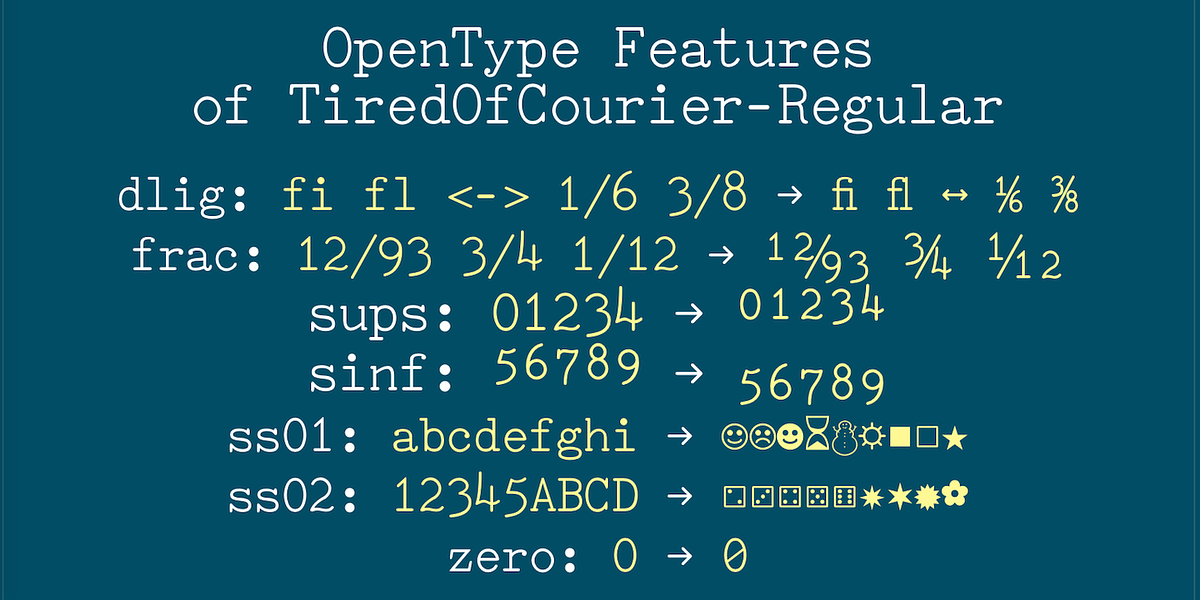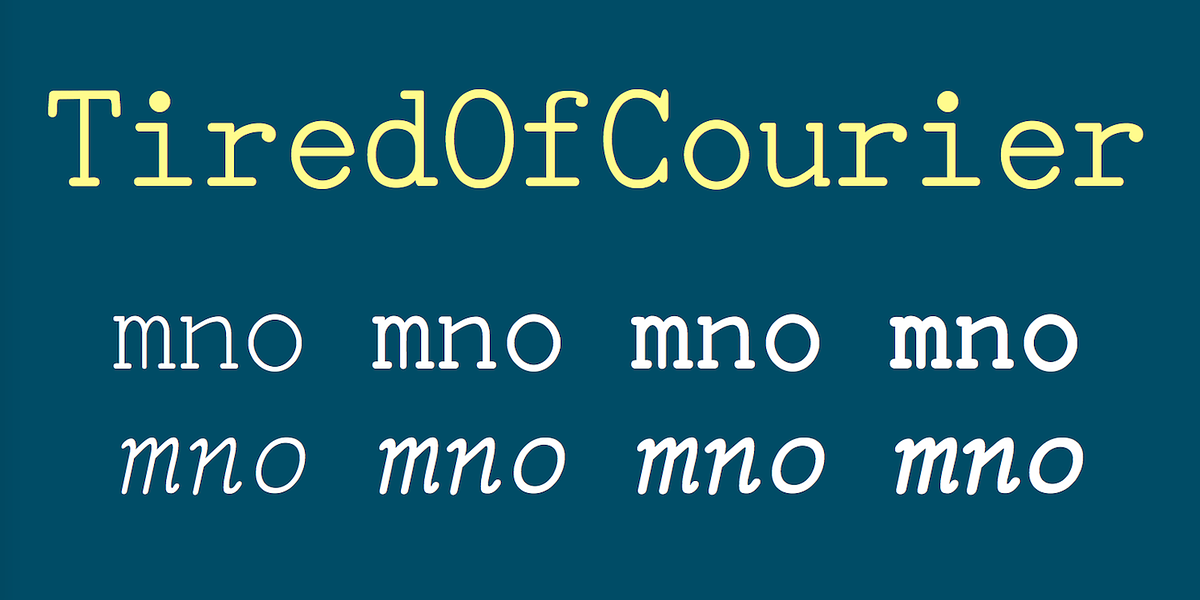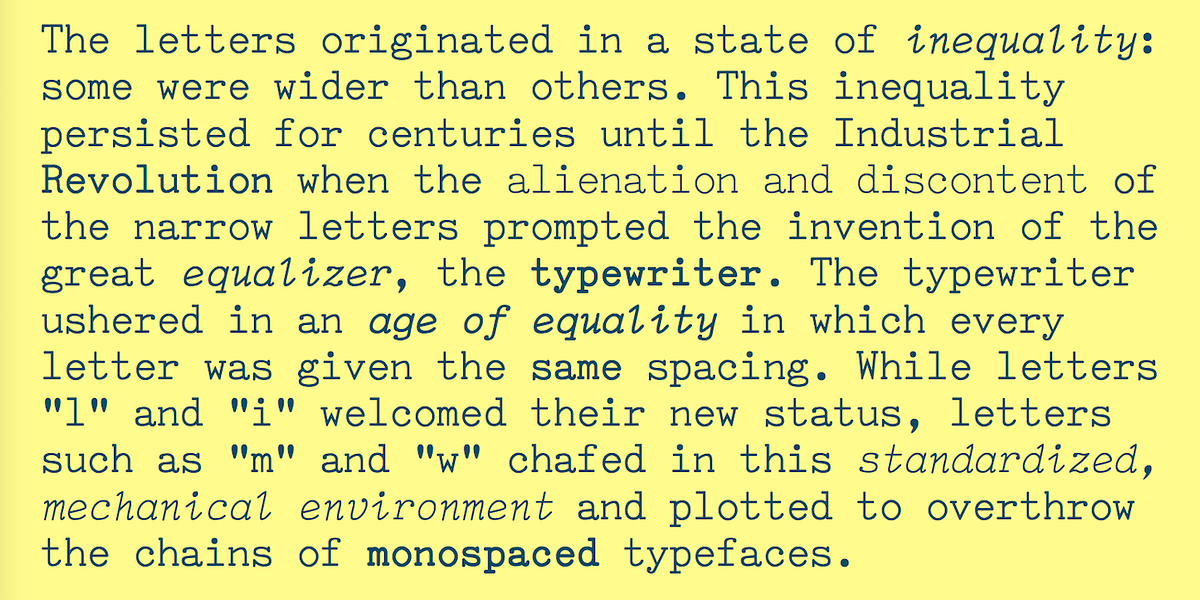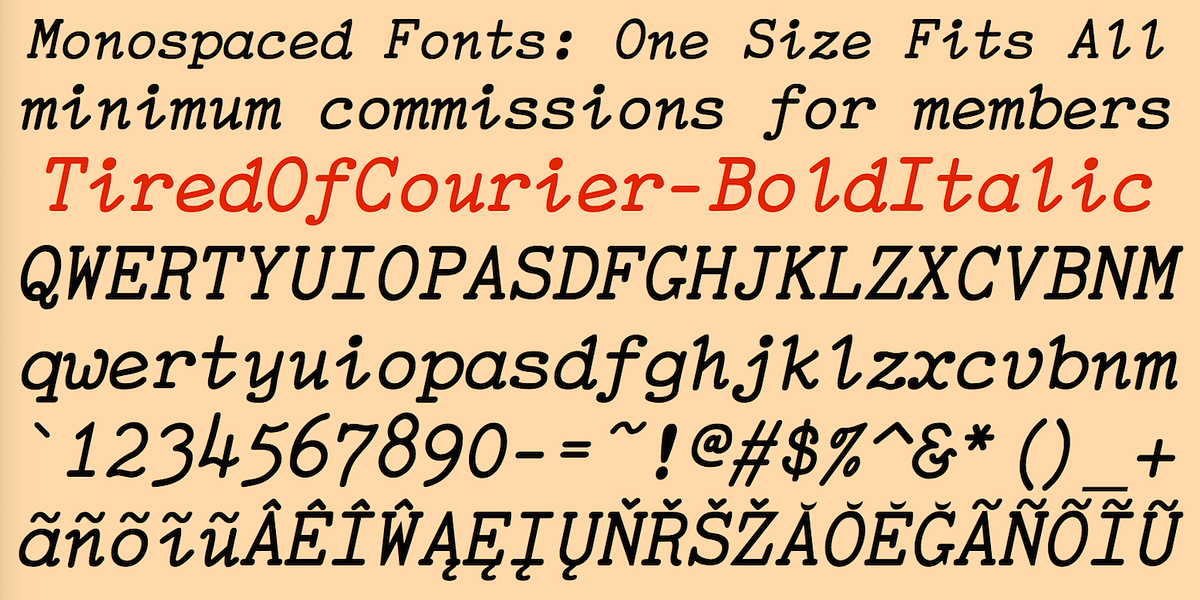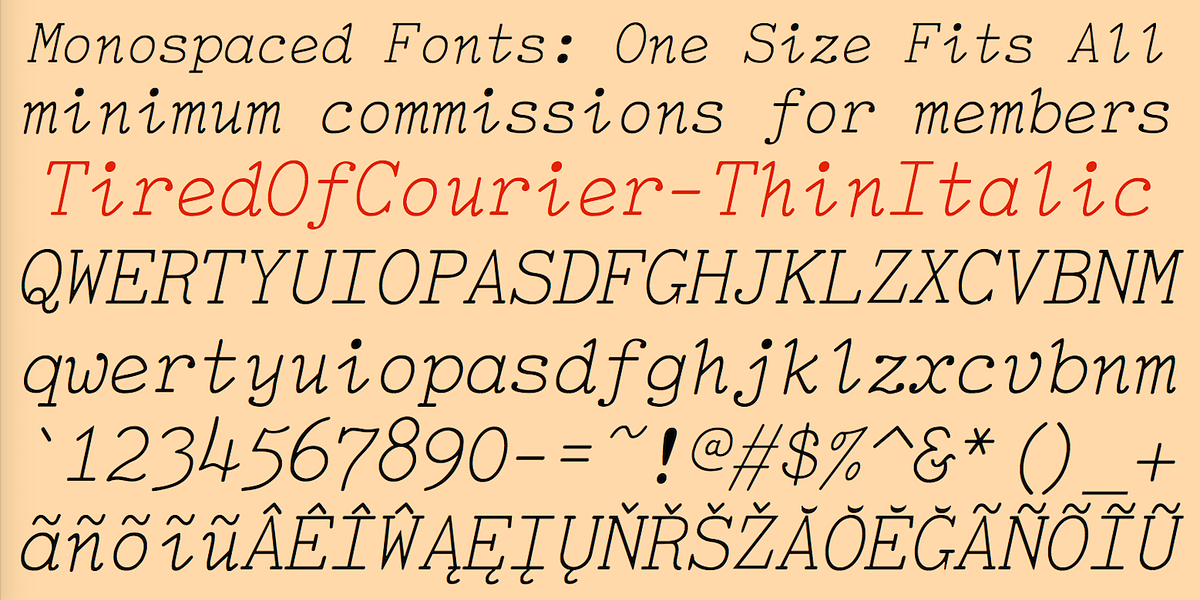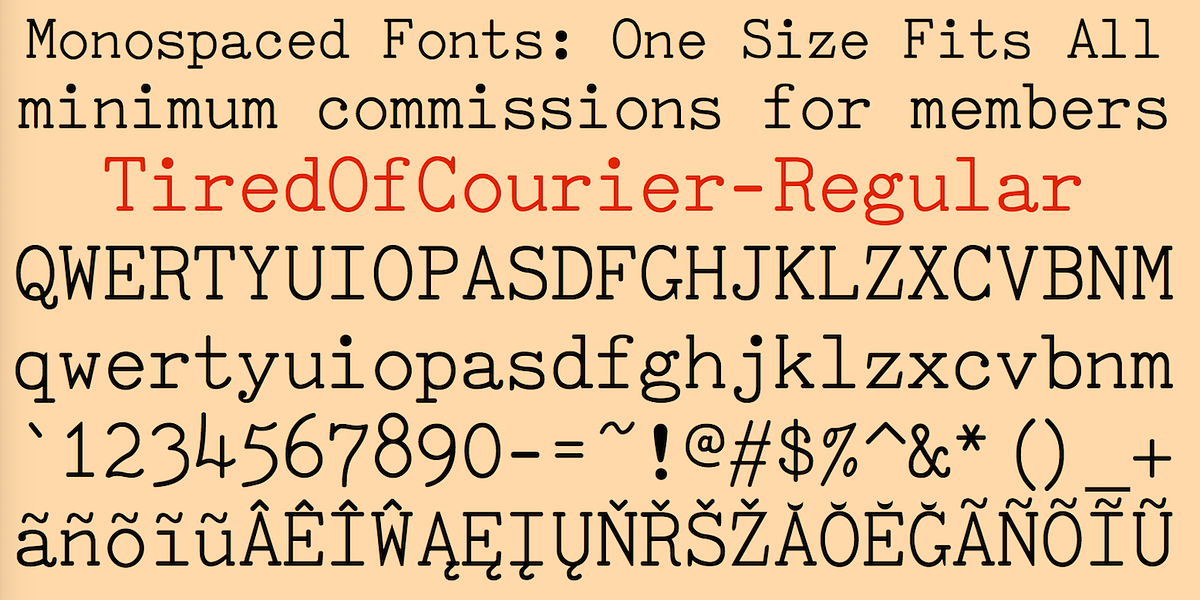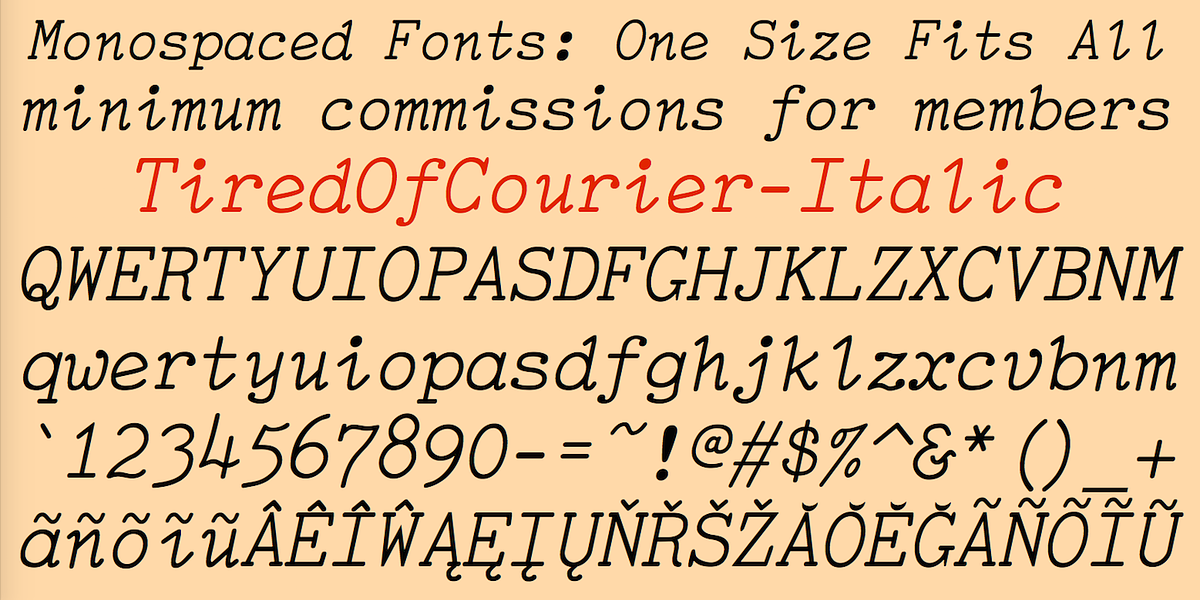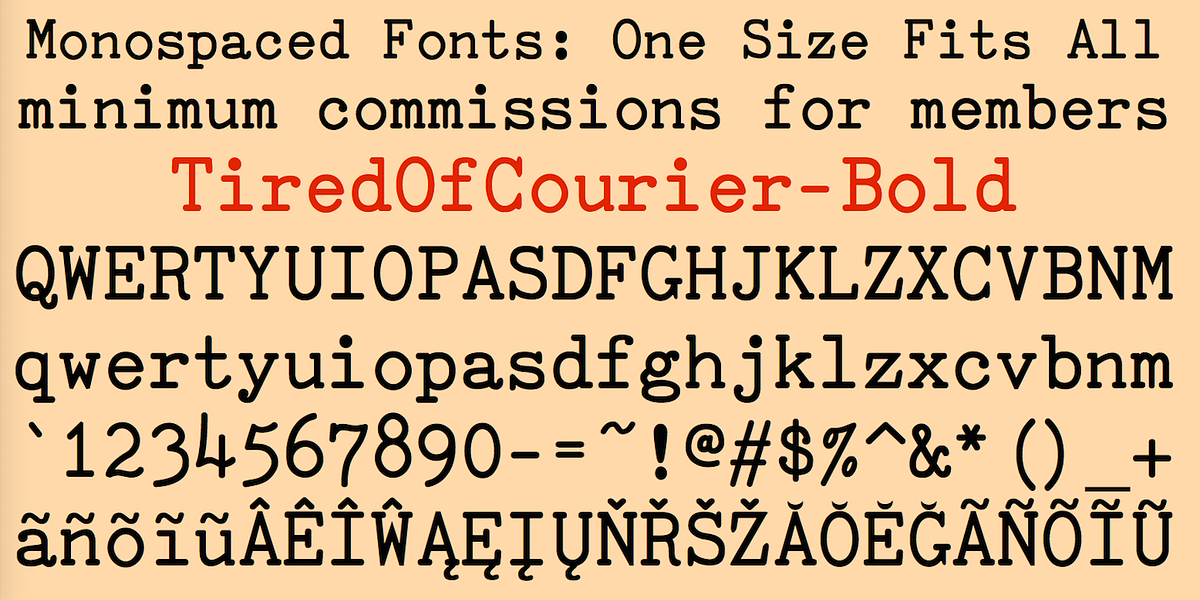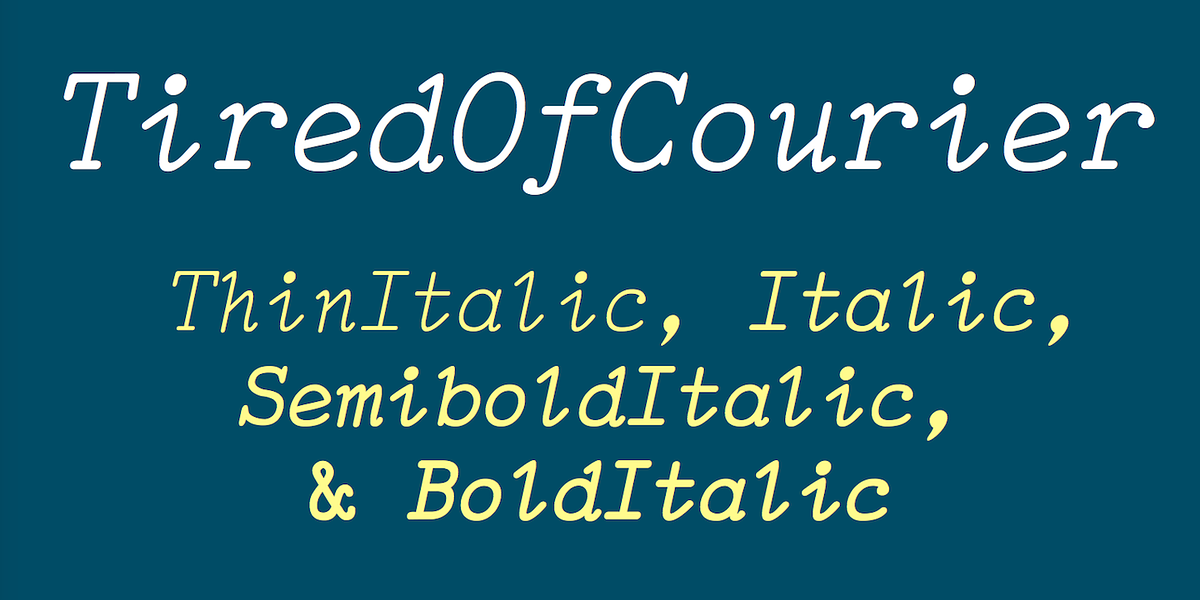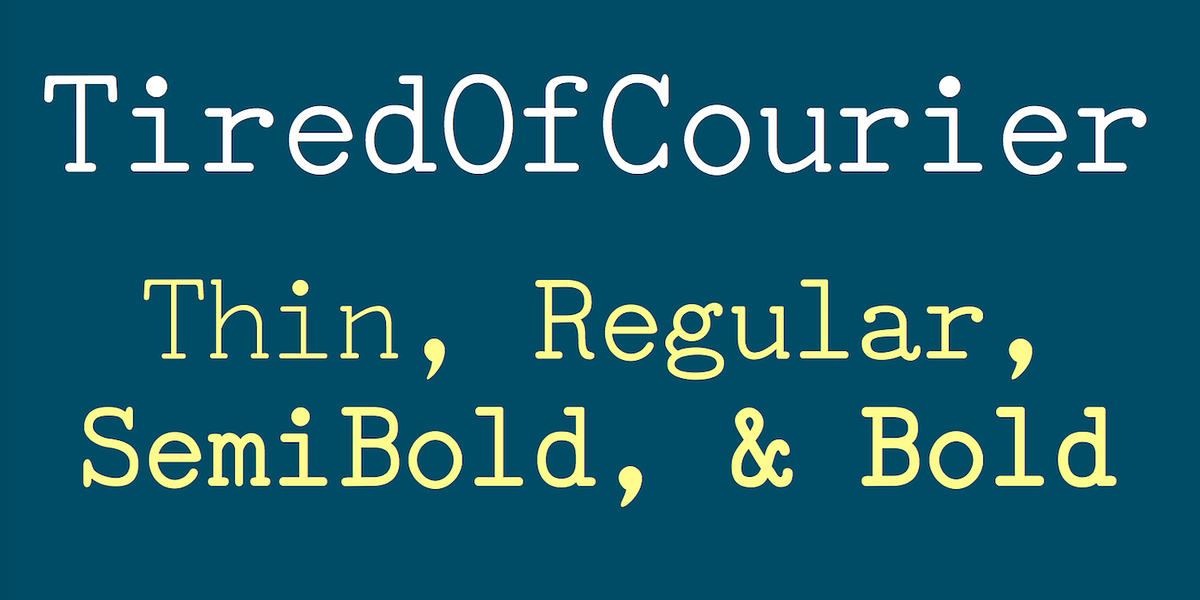
TiredOfCourier
TiredOfCourier is a typewriter-inspired font that offers a vintage aesthetic. It stands out from other typewriter fonts by including true italics, which are uncommon in this style. The rounded characteristics contribute to its classic and nostalgic feel.